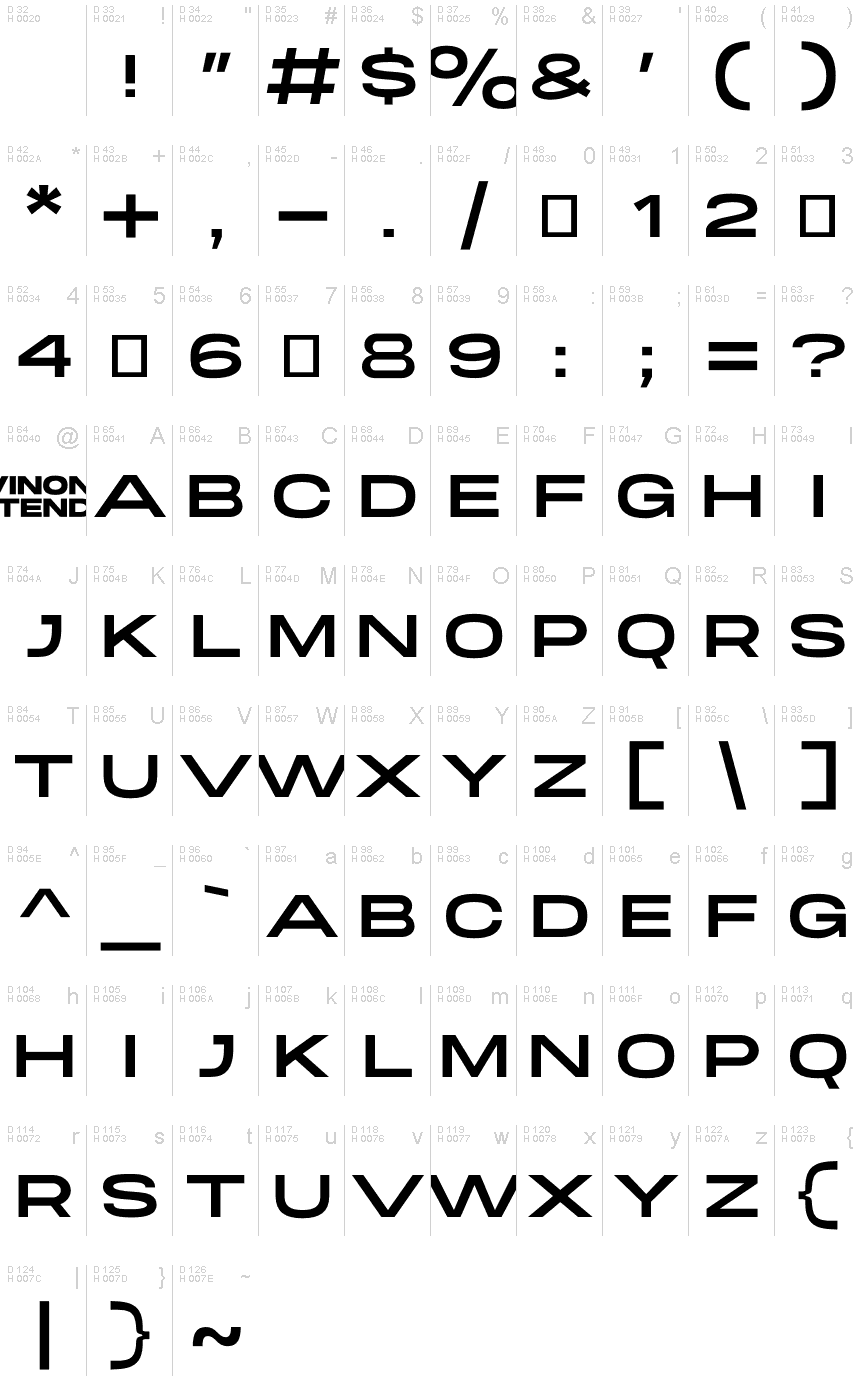
WinongExtended Demo
Introducing Winong Extended by Human Design - an extra-extended sans serif font perfect for modern and contemporary design projects. This stylish typeface is ideal for logos, titles, posters, and other digital projects that require a unique and eye-catching font. Its generous character width allows for easy readability in large settings. Winong Extended will add a touch of sophistication to any design project.